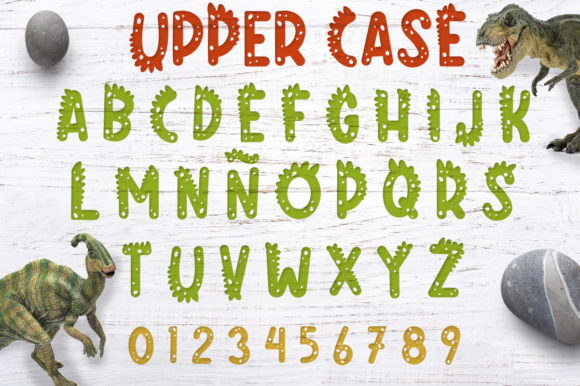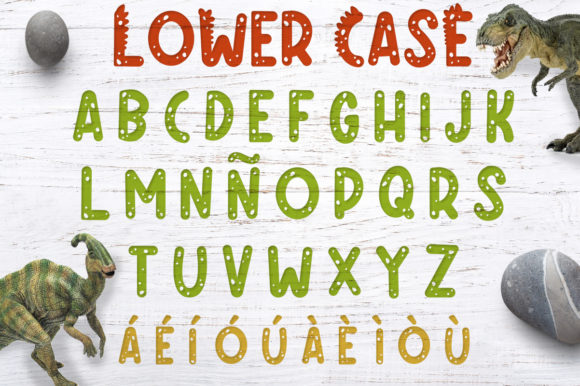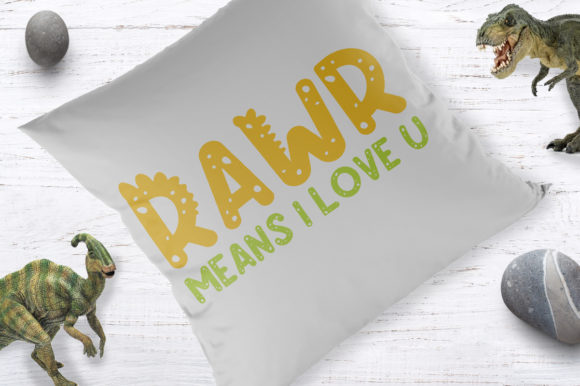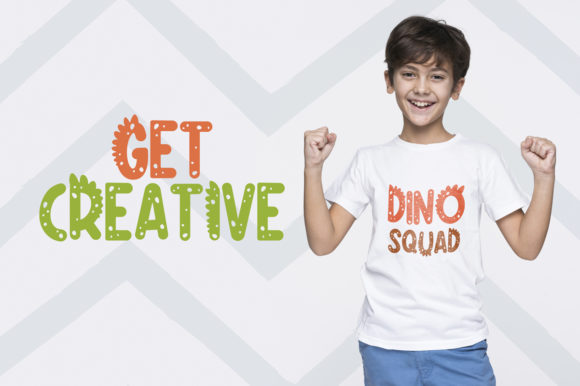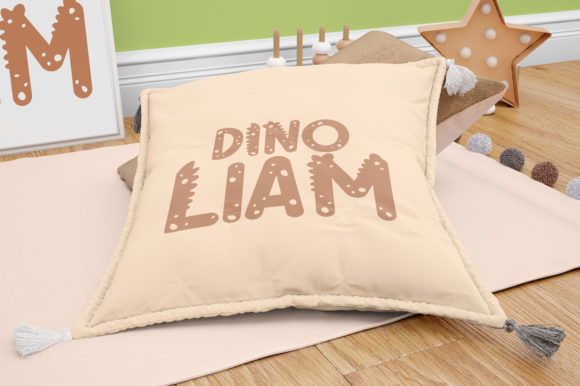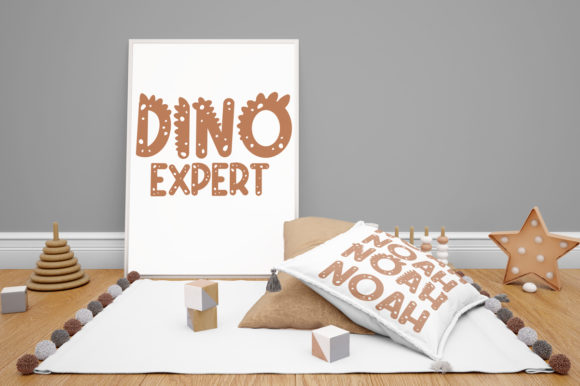
Dino Rush Font: Unleash Your Creativity with a Fun and Unique Display Font
Are you looking for a font that can add a touch of childlike playfulness to your designs? Look no further than the Dino Rush Font! This fun and unique display font is perfect for designers and crafters who want to create engaging and creative projects for kids and school assignments. In this article, we’ll explore the features and benefits of the Dino Rush Font and how you can use it to brighten up your designs.
What is Dino Rush Font?
Dino Rush Font is a display font designed to capture the imagination of kids and adults alike. Its childlike playfulness and fun design make it perfect for projects that require a playful touch. The font is carefully crafted to resemble the handwriting of a excited kid, making it ideal for designs that need to convey a sense of energy and enthusiasm.
Key Features of Dino Rush Font
- Fun and Unique Design: The Dino Rush Font has a one-of-a-kind design that is sure to grab attention. Its playful and childlike style makes it perfect for designs that need to appeal to kids and adults alike.
- Display Font: The Dino Rush Font is a display font, which means it’s designed to be used in large sizes, making it perfect for headings, titles, and other display text.
- Easy to Read: Despite its playful design, the Dino Rush Font is easy to read, making it perfect for designs that need to convey a message.
- Versatile: The Dino Rush Font can be used for a wide range of projects, from kids’ party invitations to school projects, and even for crafting and scrapbooking.
Benefits of Using Dino Rush Font
So, why should you use the Dino Rush Font for your designs? Here are just a few benefits:
- Adds a Touch of Whimsy: The Dino Rush Font adds a touch of whimsy and playfulness to your designs, making them more engaging and fun.
- Perfect for Kids’ Projects: The font’s childlike design makes it perfect for projects aimed at kids, such as party invitations, activity sheets, and educational materials.
- Great for School Projects: The Dino Rush Font is also great for school projects, such as posters, presentations, and reports, where a touch of personality can make a big difference.
How to Use Dino Rush Font
Using the Dino Rush Font is easy! Here are a few tips to get you started:
- Pair it with Other Fonts: Pair the Dino Rush Font with other fonts to create a unique and interesting design.
- Use it in Large Sizes: The Dino Rush Font is designed to be used in large sizes, so don’t be afraid to use it for headings and titles.
- Experiment with Colors: The font looks great in bright, bold colors, so don’t be afraid to experiment and find the perfect color for your design.
In conclusion, the Dino Rush Font is a fun and unique display font that is perfect for designers and crafters who want to add a touch of childlike playfulness to their designs. With its easy-to-use design and versatile style, it’s perfect for kids’ projects, school assignments, and crafting and scrapbooking. So why not give it a try and see how it can brighten up your designs?
Whether you’re a designer, crafter, or teacher, the Dino Rush Font is a great addition to your font collection. So go ahead, get creative, and have fun with the Dino Rush Font!